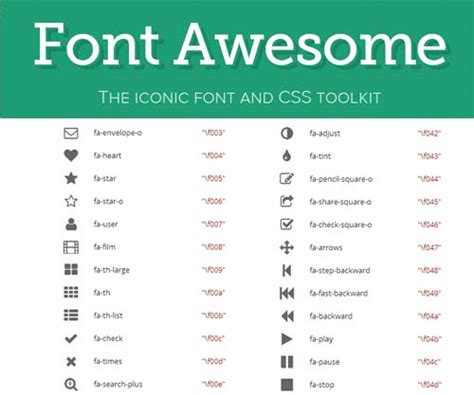
List Font Awesome. Great for small sizes and bringing contrast to text. Web these are the icons you're looking for.
Make a bold statement in small sizes. Familiar with the basics of adding font awesome icons. Great for small sizes and bringing contrast to text. Web the complete set of 675 icons in font awesome 4.7.0 you asked, font awesome delivers with 41 shiny new icons in. Web these are the icons you're looking for. Set up with font awesome in your project. List icon in the solid style.
Web these are the icons you're looking for. Make a bold statement in small sizes. Great for small sizes and bringing contrast to text. List icon in the solid style. Familiar with the basics of adding font awesome icons. Set up with font awesome in your project. Web the complete set of 675 icons in font awesome 4.7.0 you asked, font awesome delivers with 41 shiny new icons in. Web these are the icons you're looking for.